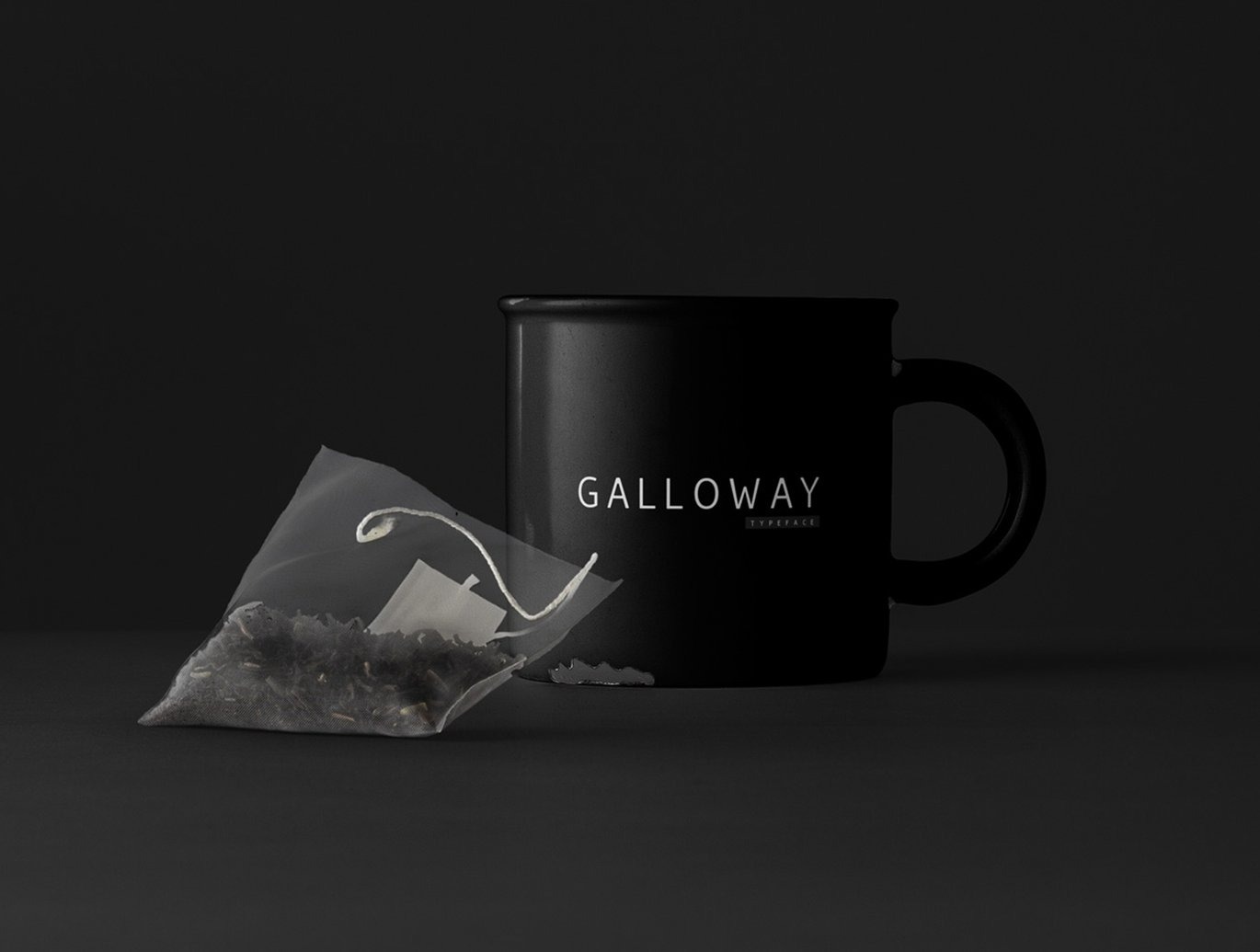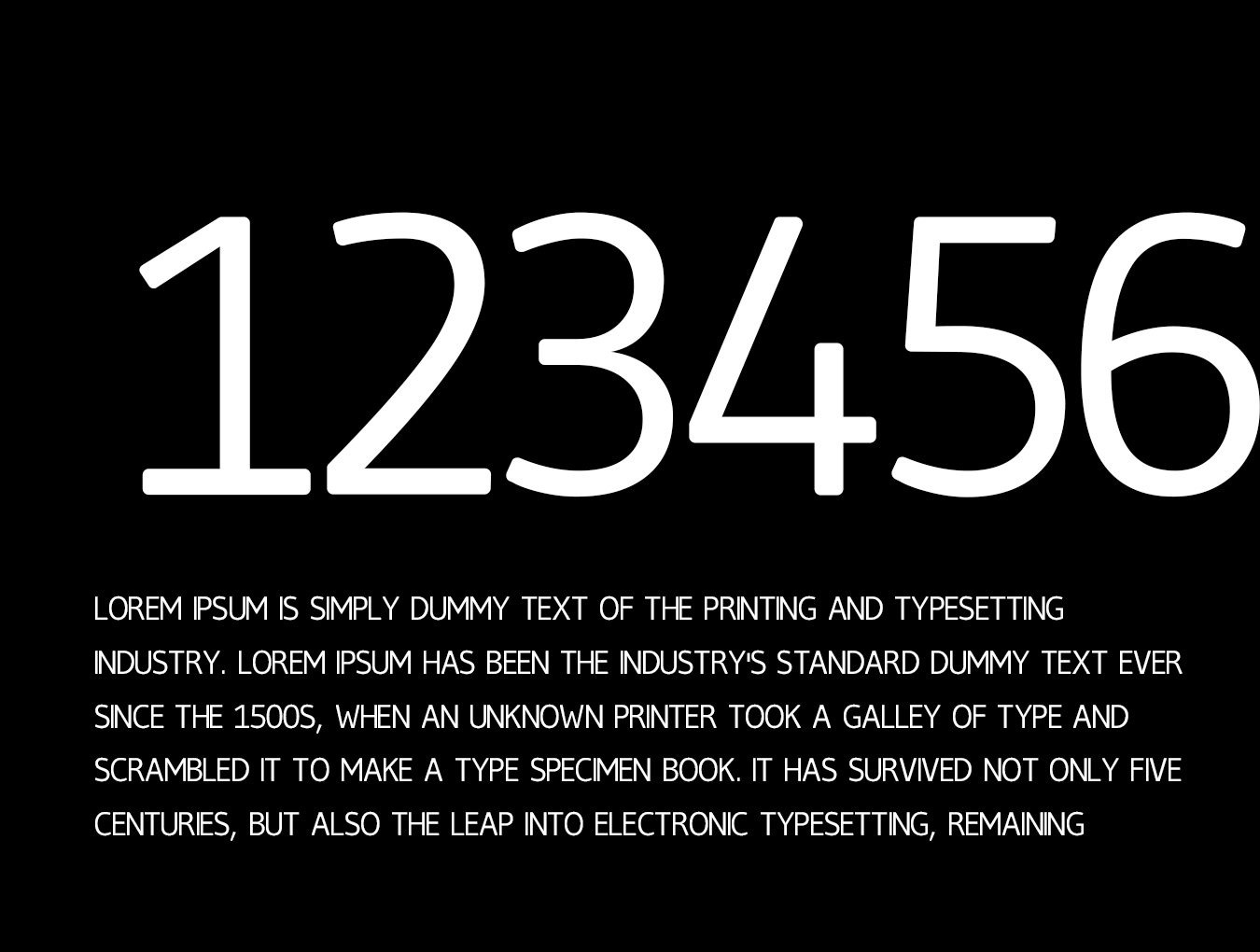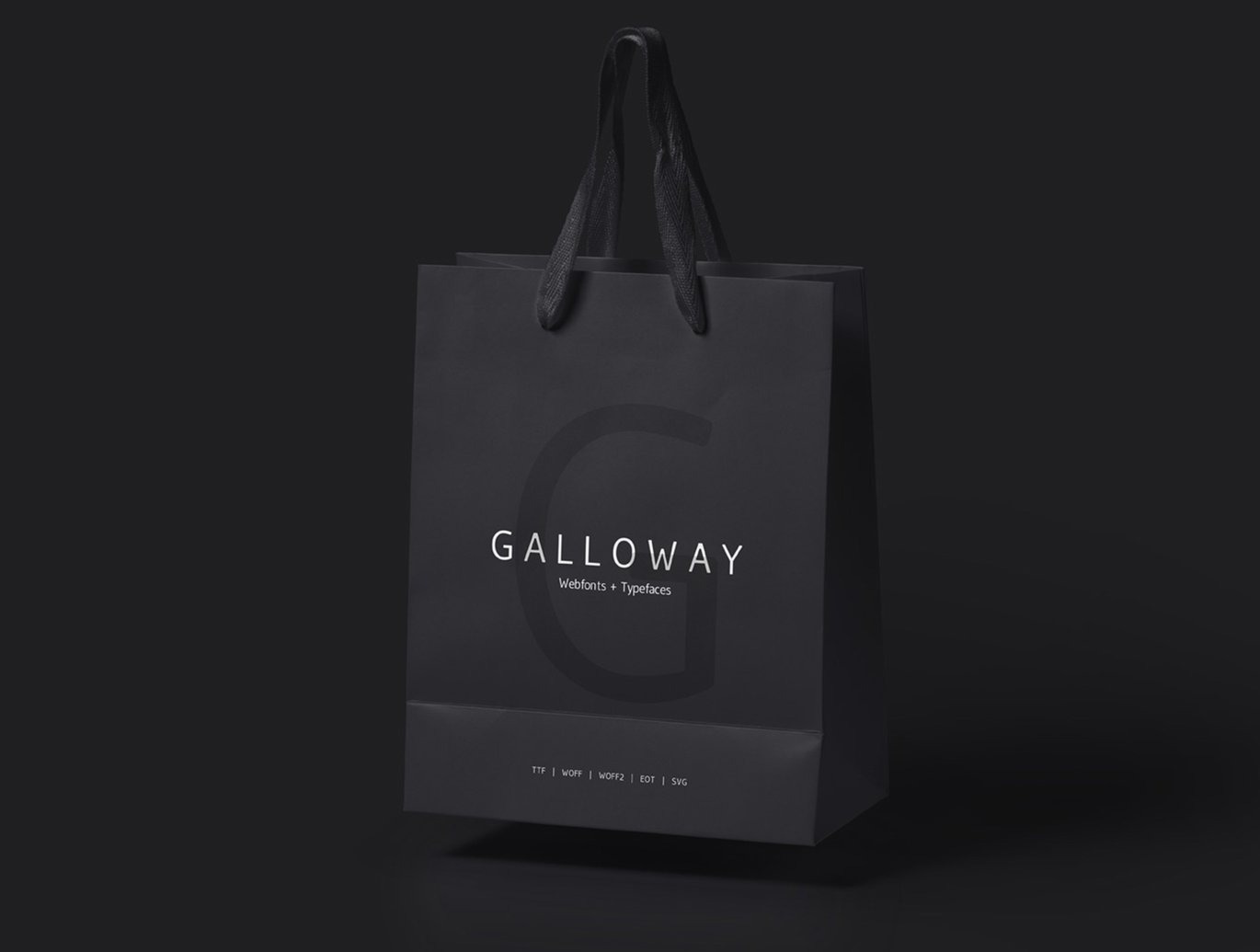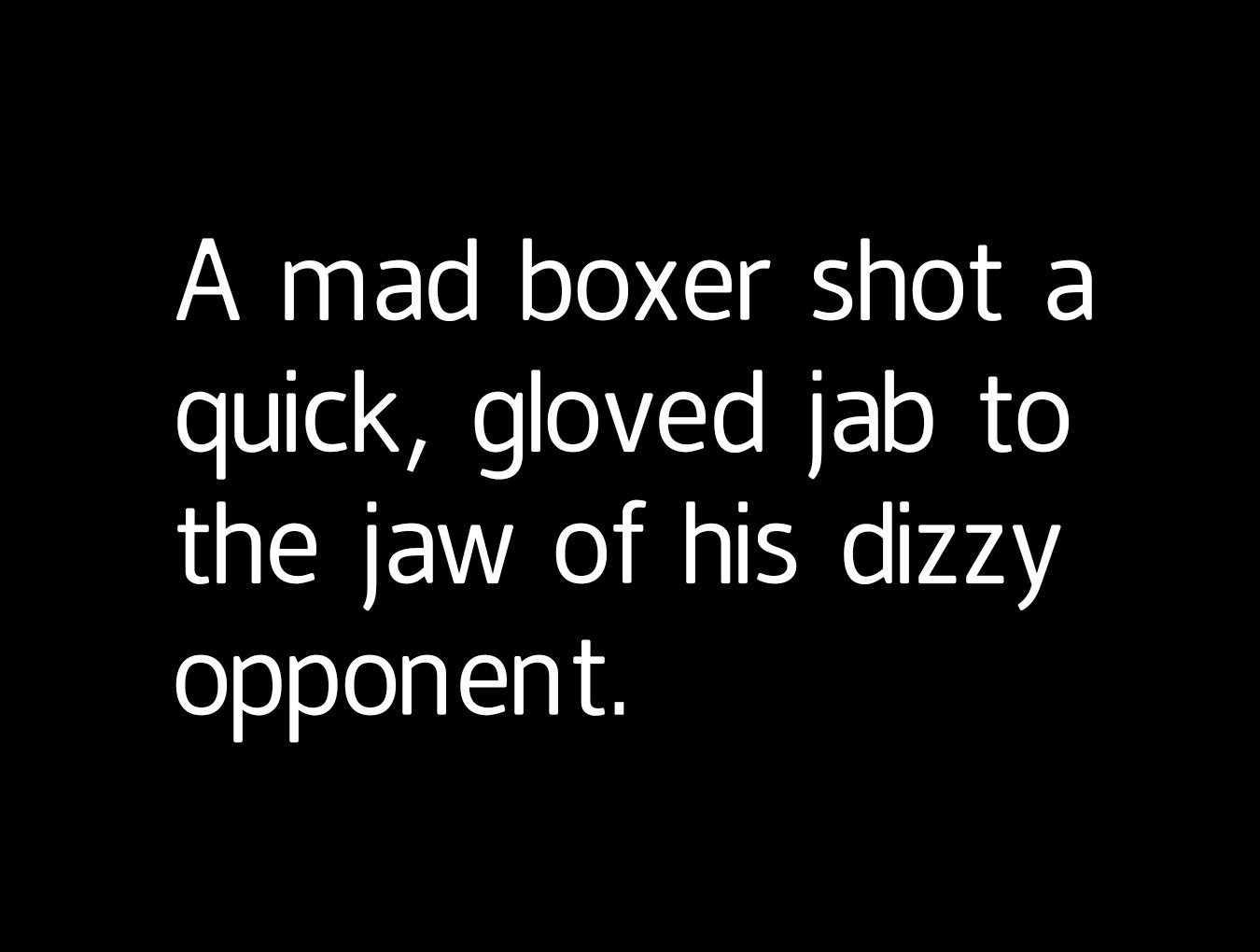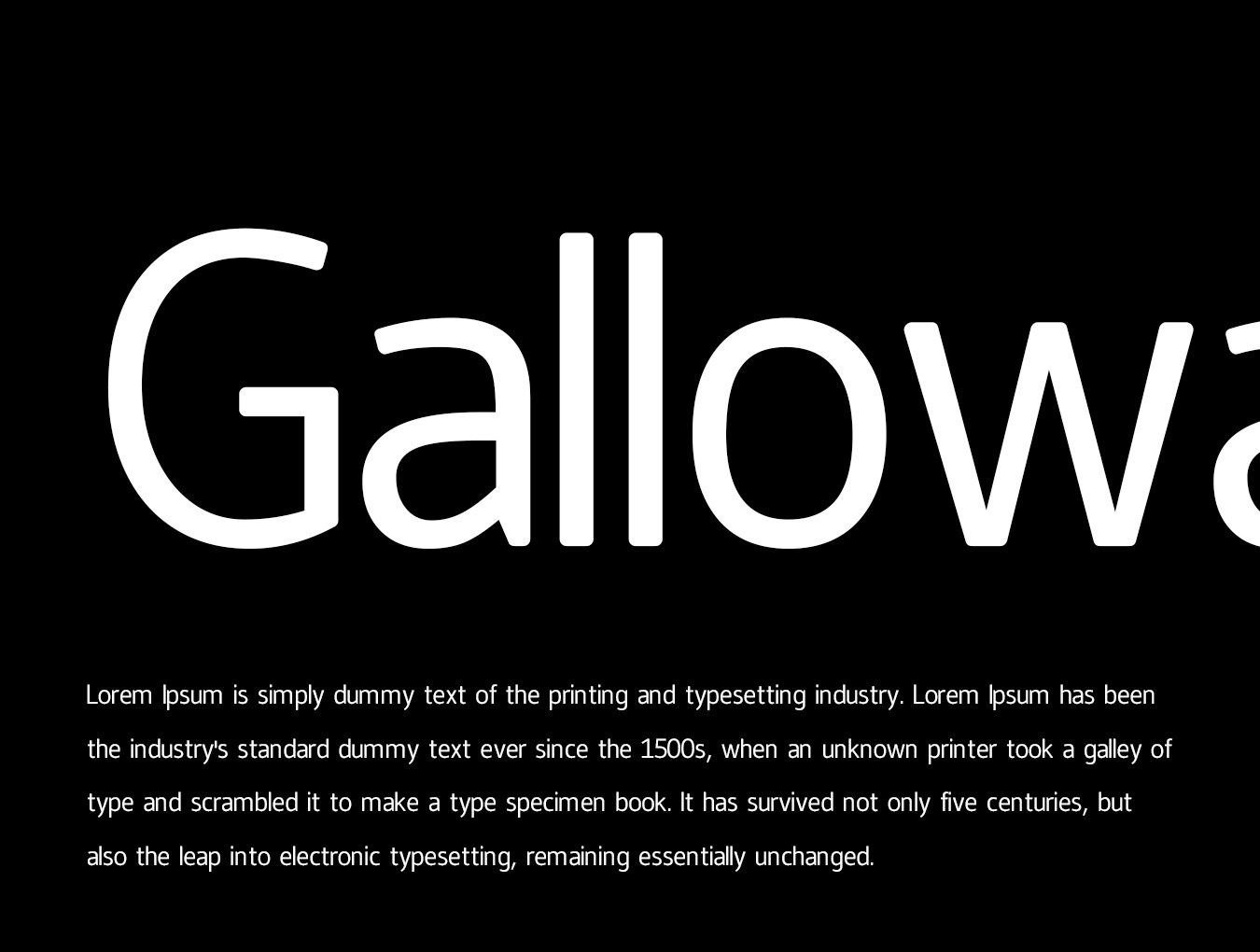
Galloway is a modern and Minimal Sans Serif typeface, Galloway Sans can keep the minimalism at its level best and is a Perfect choice for Creative and Classic Typography Designs. The pack includes OTF, TTF and Web Fonts